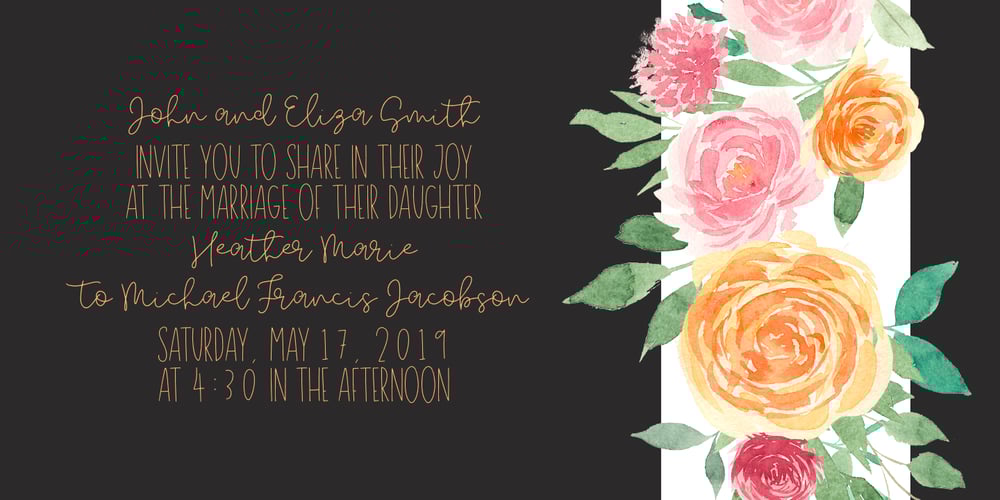
Golden Font Family was designed by Dmitrii Chirkov and published by Supfonts. Golden contains 1 styles and family package options. Meet my new cute font Golden! For those of you who are needing a touch of elegance and modernity for your designs, this font was created for you! www.instagram.com/youthlettering pinterest.com/dmitriychirkov7 Thanks so much for checking out my shop! All the best, Dmitrii